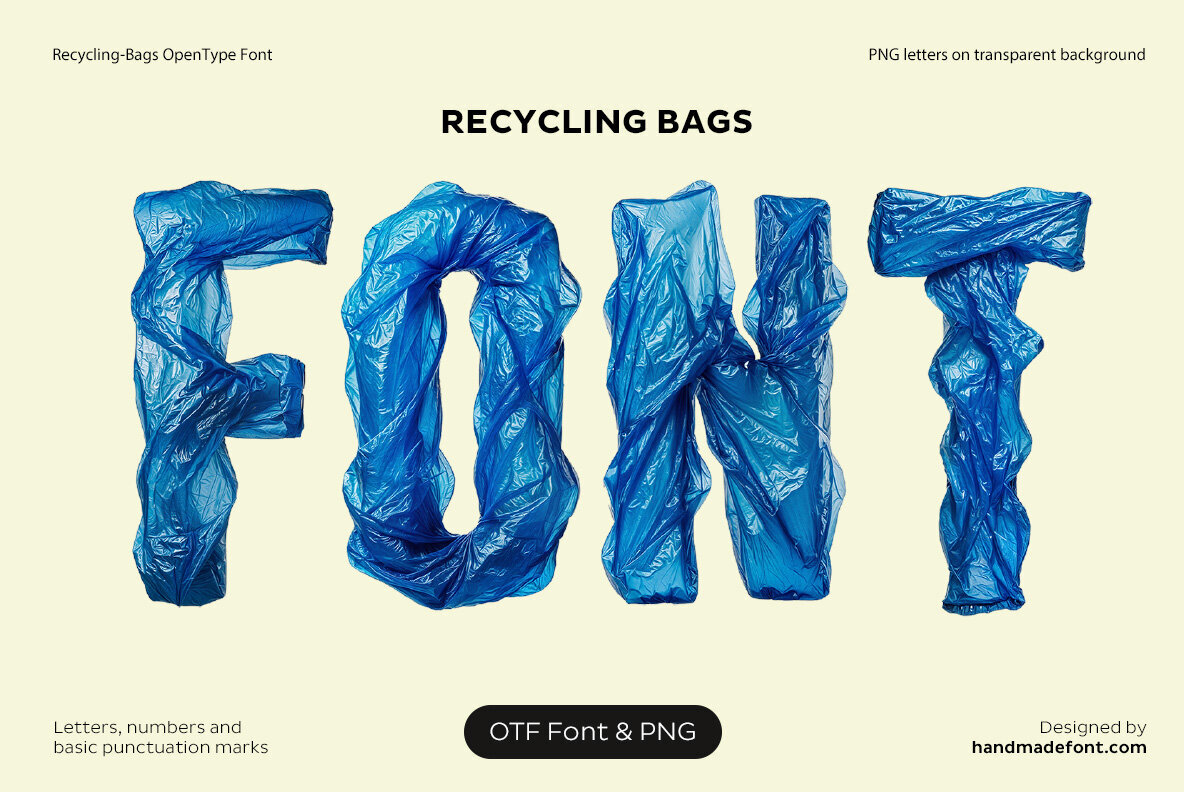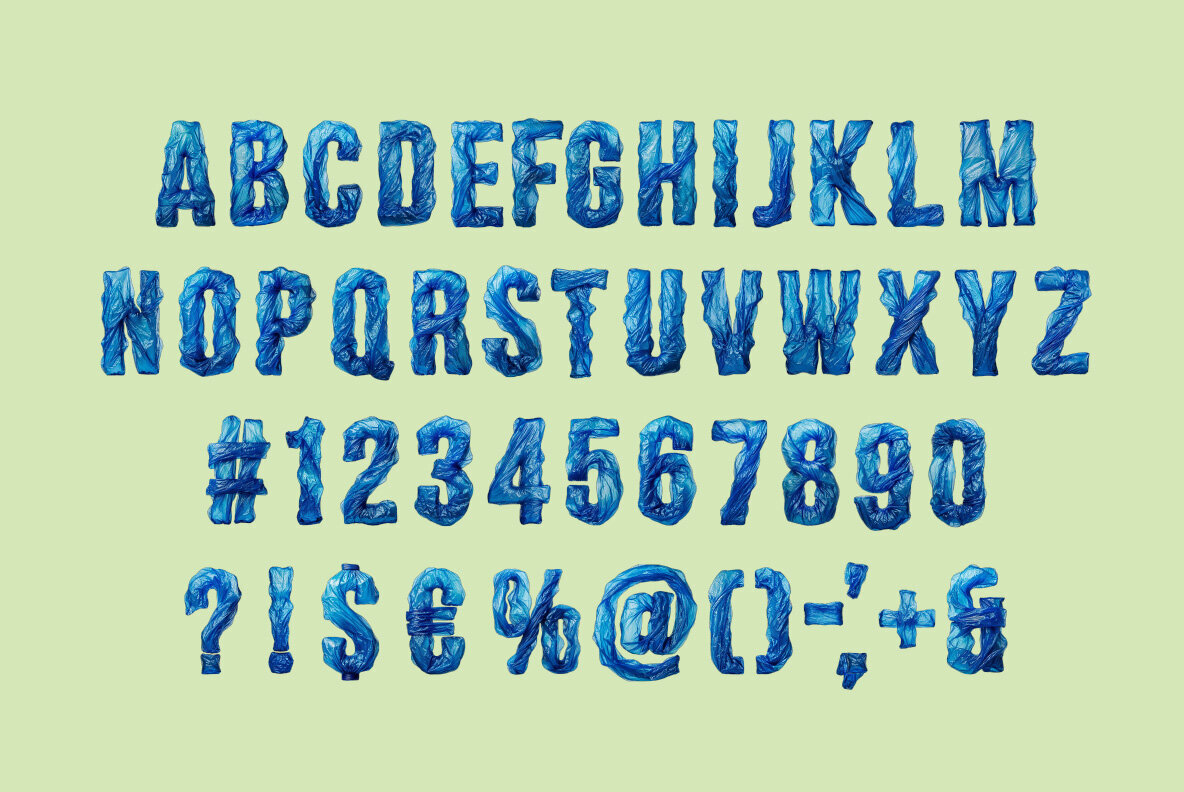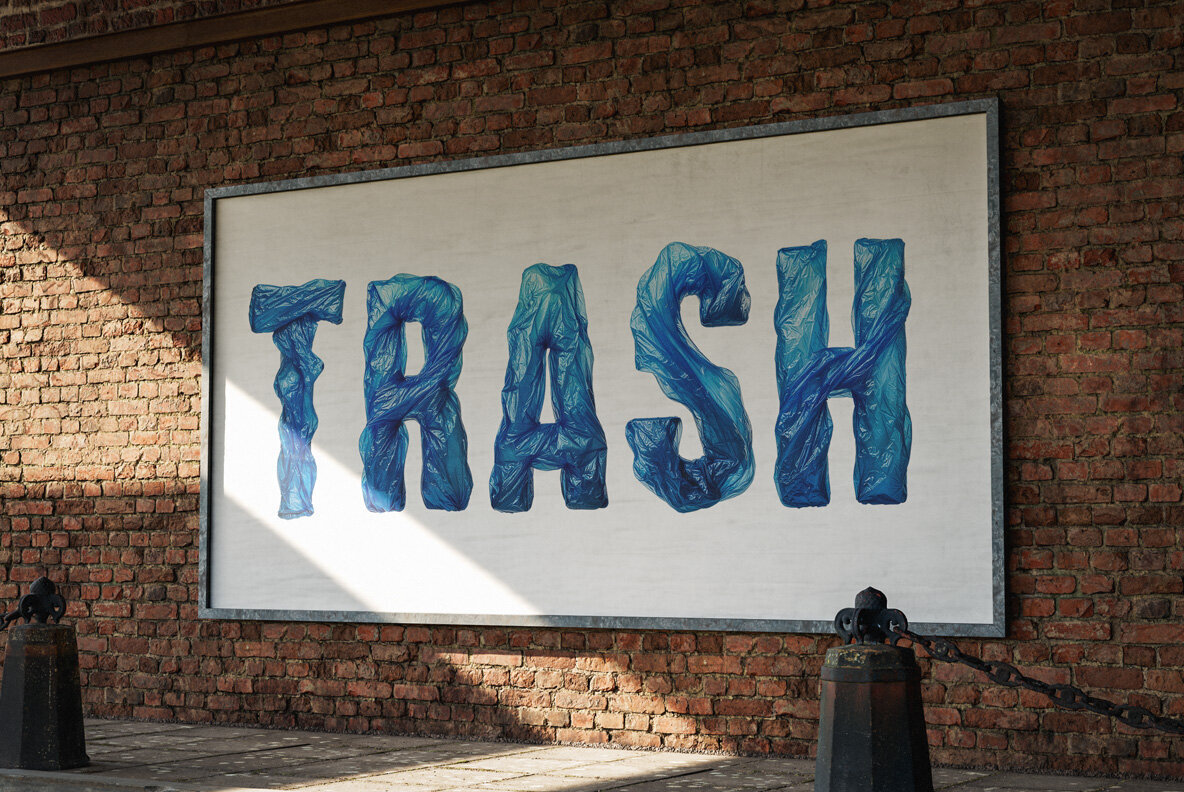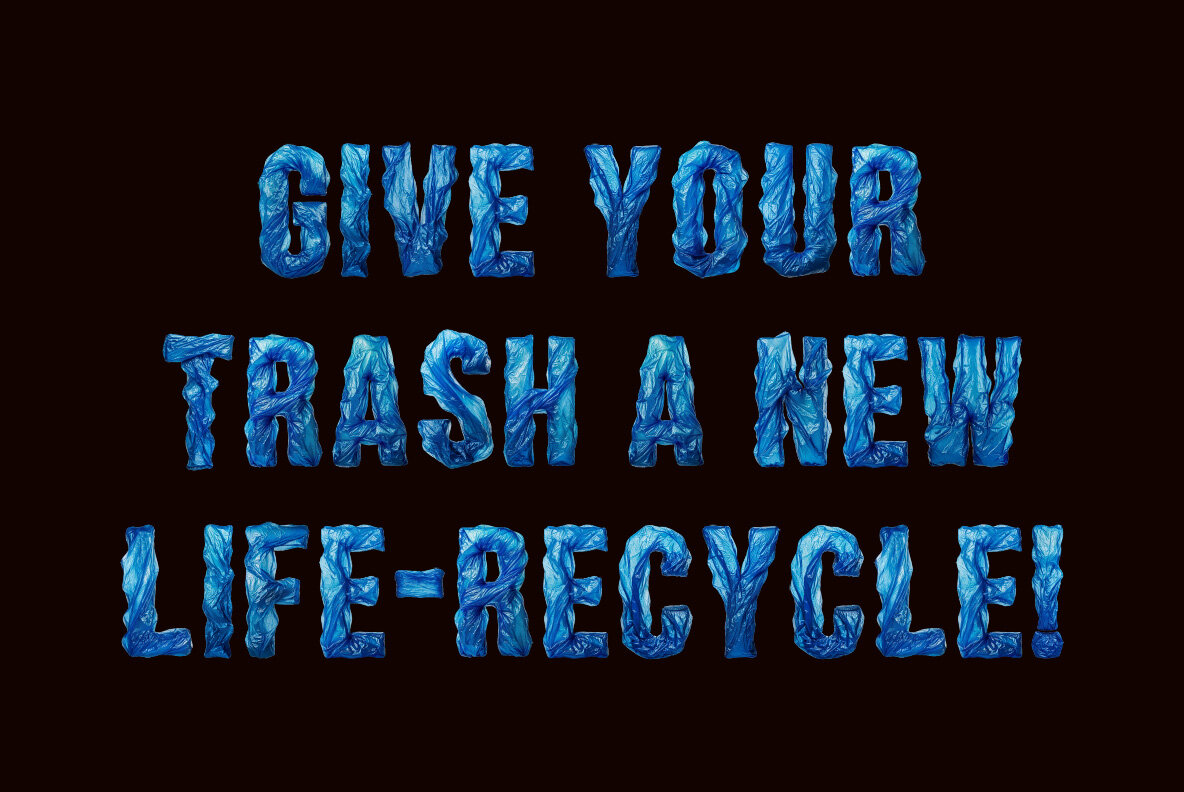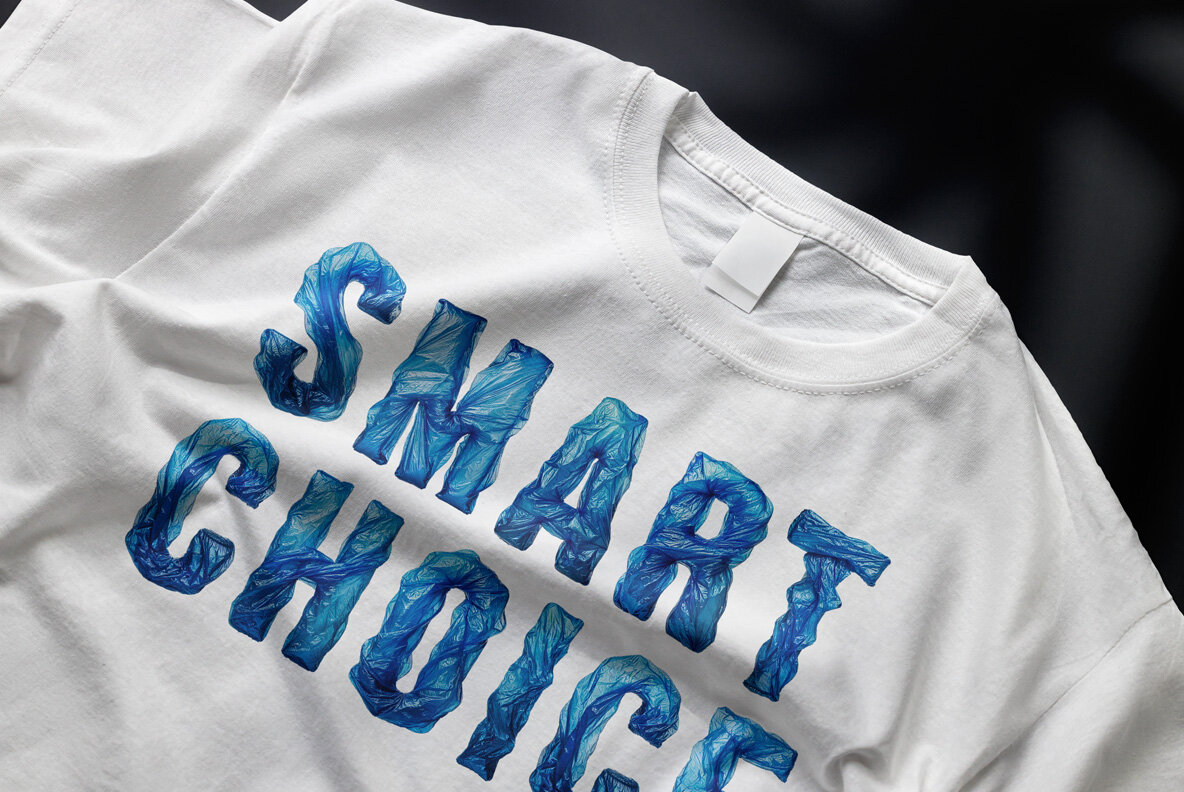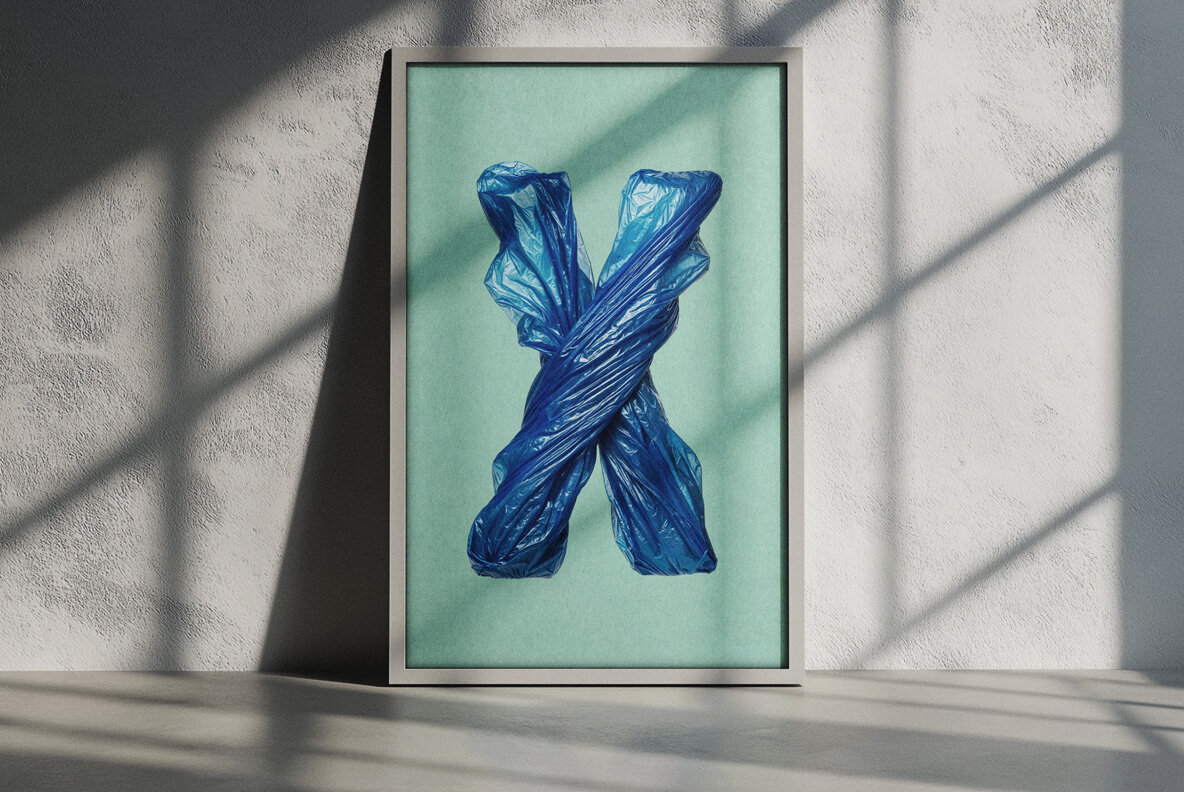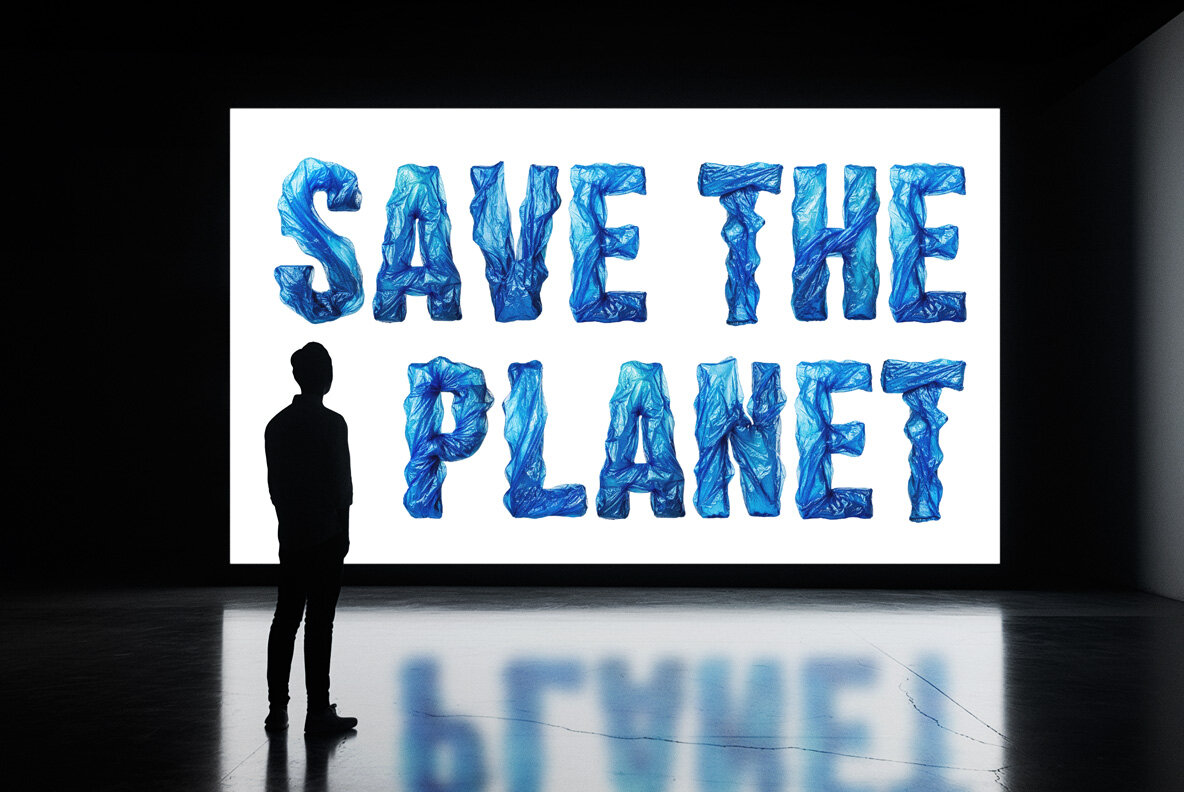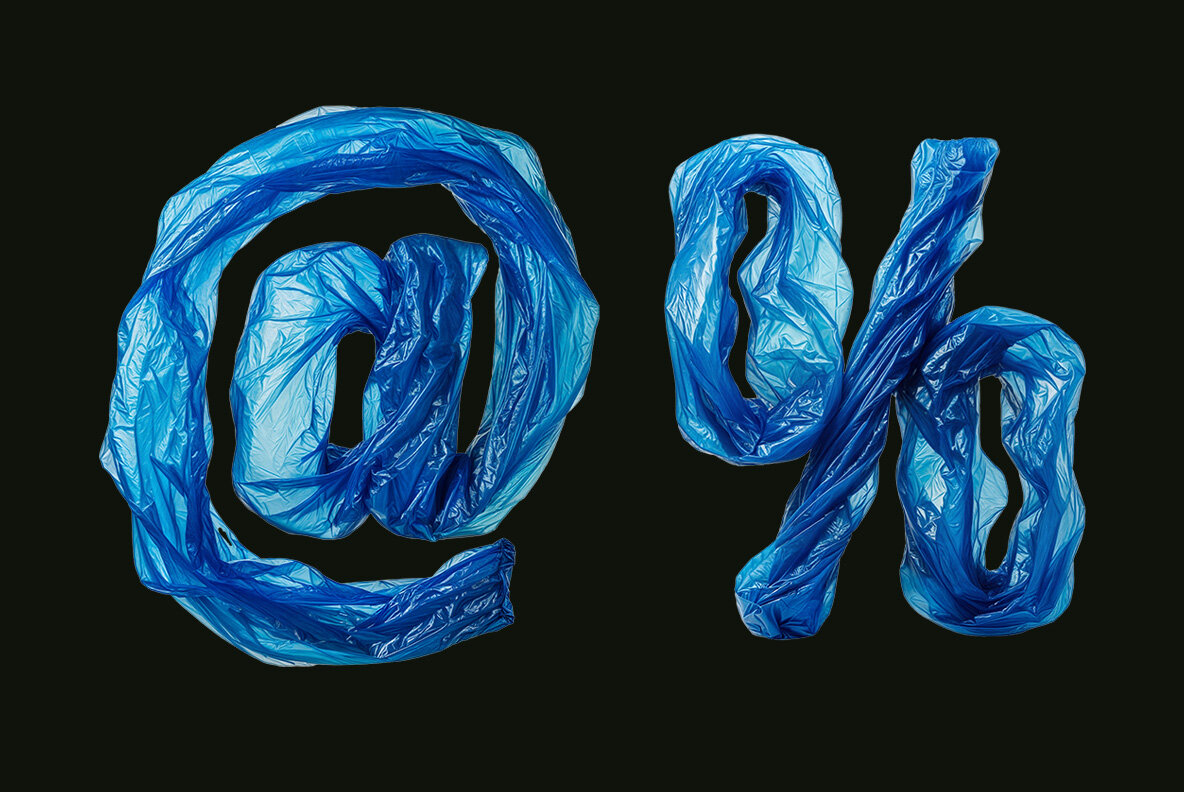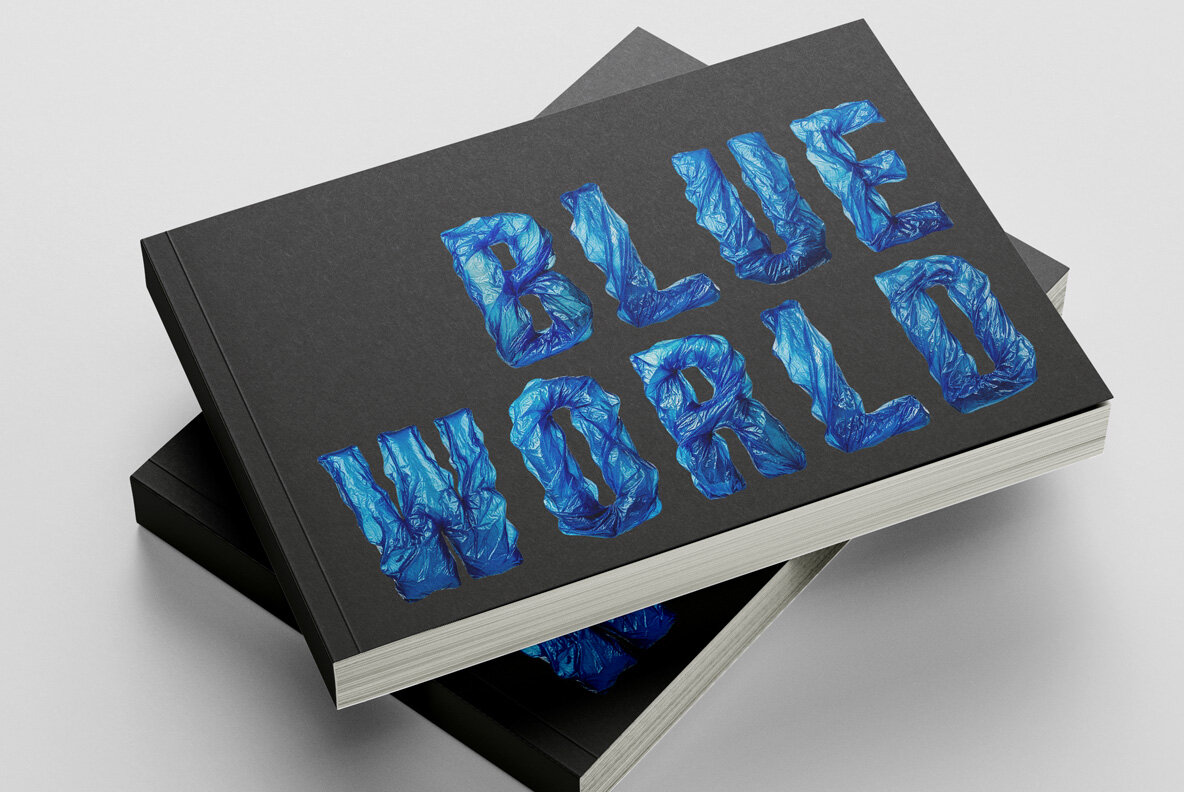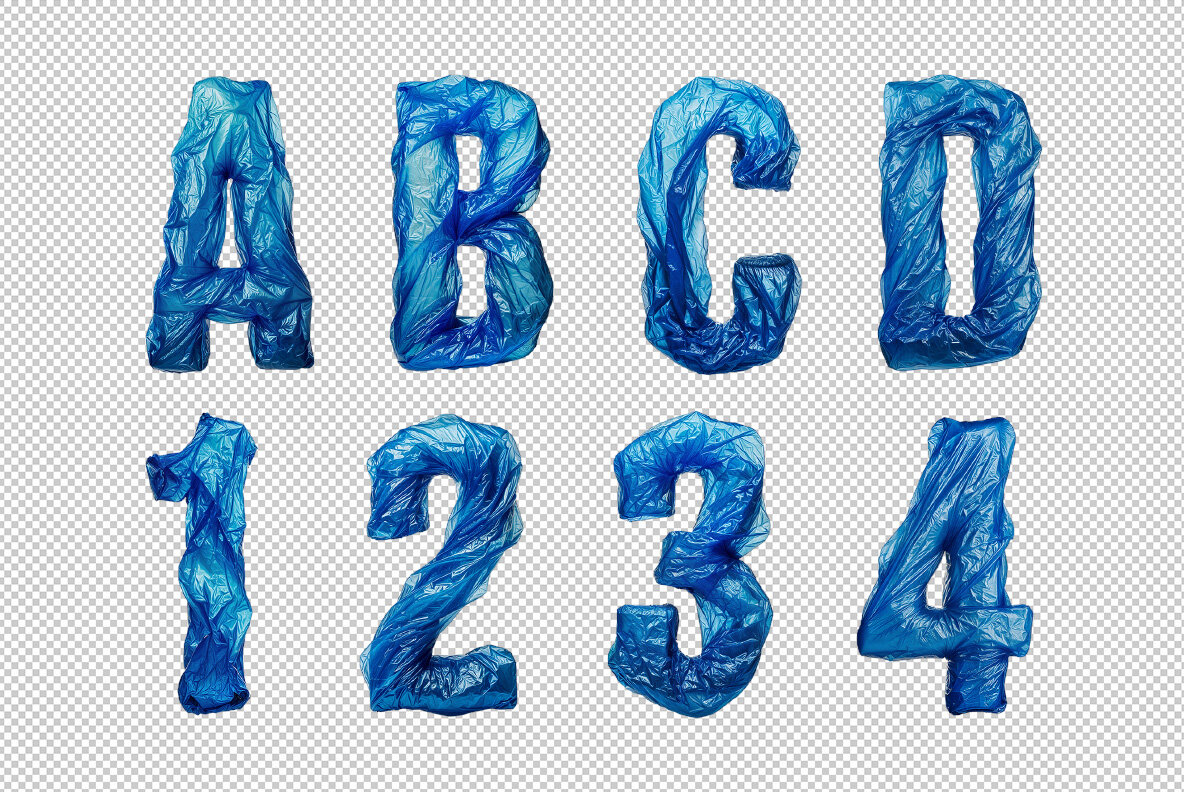
Sustainability has never looked this stylish. Recycling Bags Font takes those crinkly, wrinkly blue plastic bags from the trash heap to the design elite. Each letter is a sculpted testament to waste reduction, puffed up like an overstuffed shopping bag and gleaming with eco-friendly determination. This Recycling-inspired font doesn’t just spell words—it shouts “Save the planet!” in glossy, upcycled glory. Perfect for waste management warriors, green revolutionaries, or anyone who thinks typography should do more than just sit there looking pretty. Warning: May cause sudden urges to recycle, reduce, and reuse—especially bad design choices. A high definition OpenType Font. Contains uppercase characters, numerals and basic punctuation. (Draw height roughly 800 pixels). All letters and glyphs that comprises this font you can see on the preview. The font is a colour OpenType file which means this font will show up only in apps that are compatible with color bitmap fonts. Now that OpenType-SVG has been adopted as the industry standard, there is good chance that you can start using color fonts across your favorite software and hardware (Photoshop, Illustrator, InDesign, QuarkXPress, Keynote, PowerPoint, Word etc.) However all characters are also included as individual .png files which can be opened in any graphics software. Each letter comes as a separate PNG file on a transparent background. Each image has the high resolution size of 4000x4000px. This downloadable package contains 52 files. Letters : A B C D E F G H I J K L M N O P Q R S T U V W X Y Z Punctuation and Language Support. Due to the large nature of OpenType-SVG fonts, extended punctuation and language support are not included in the font files. However all punctuation characters and the following accents are included as individual image files in the .png letter set, which can be manually added to your text.
Others : ! ? - . ' $ € % & #